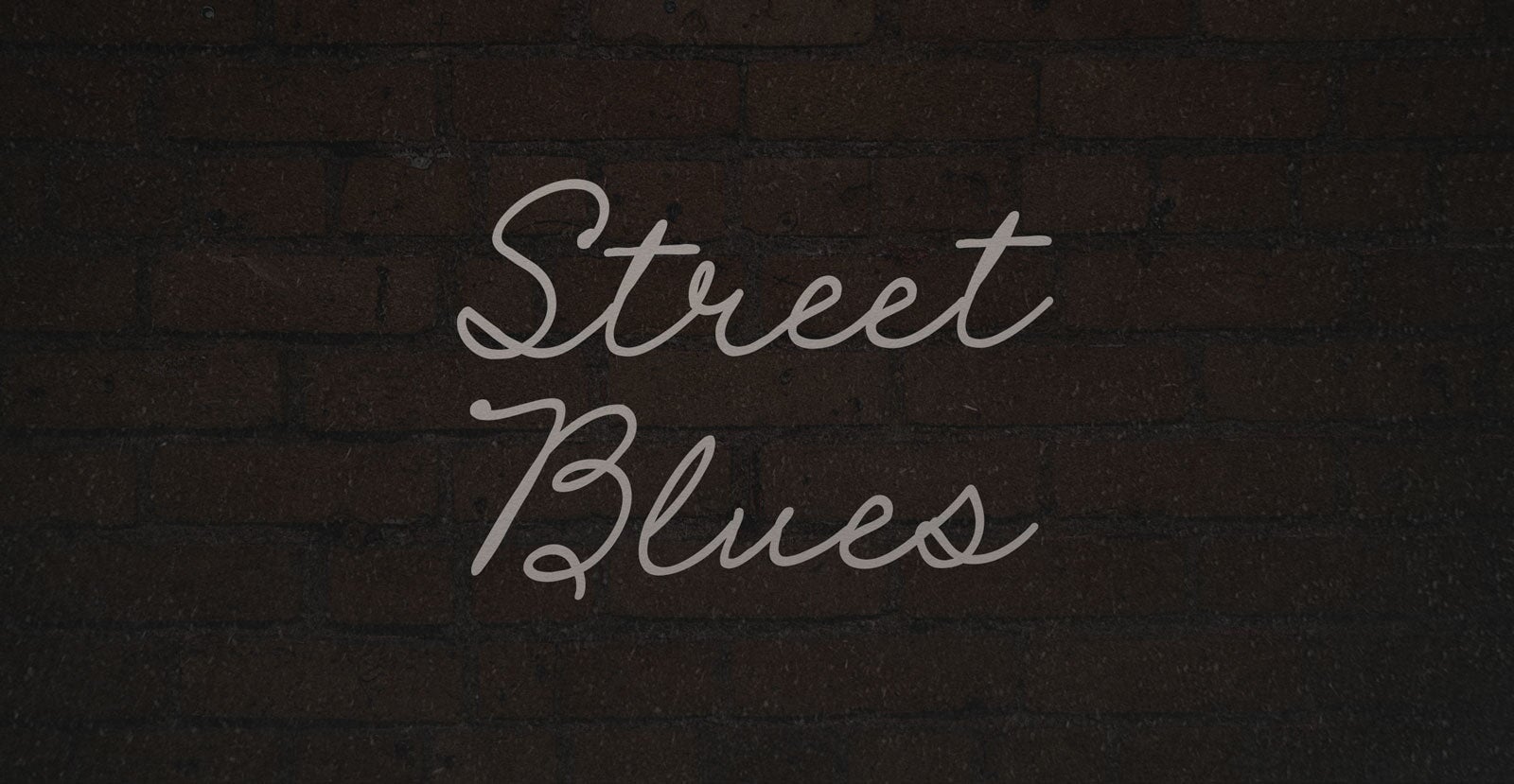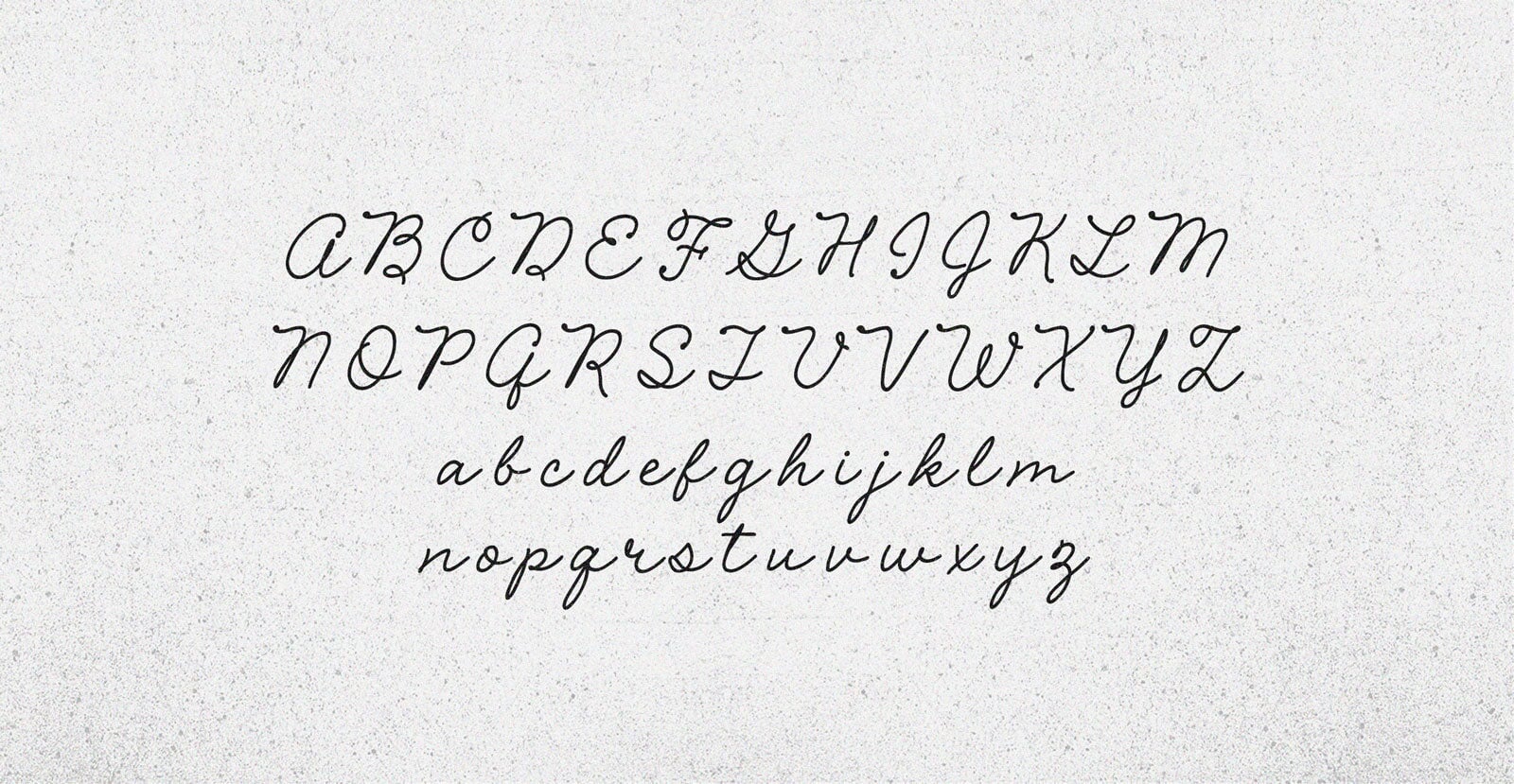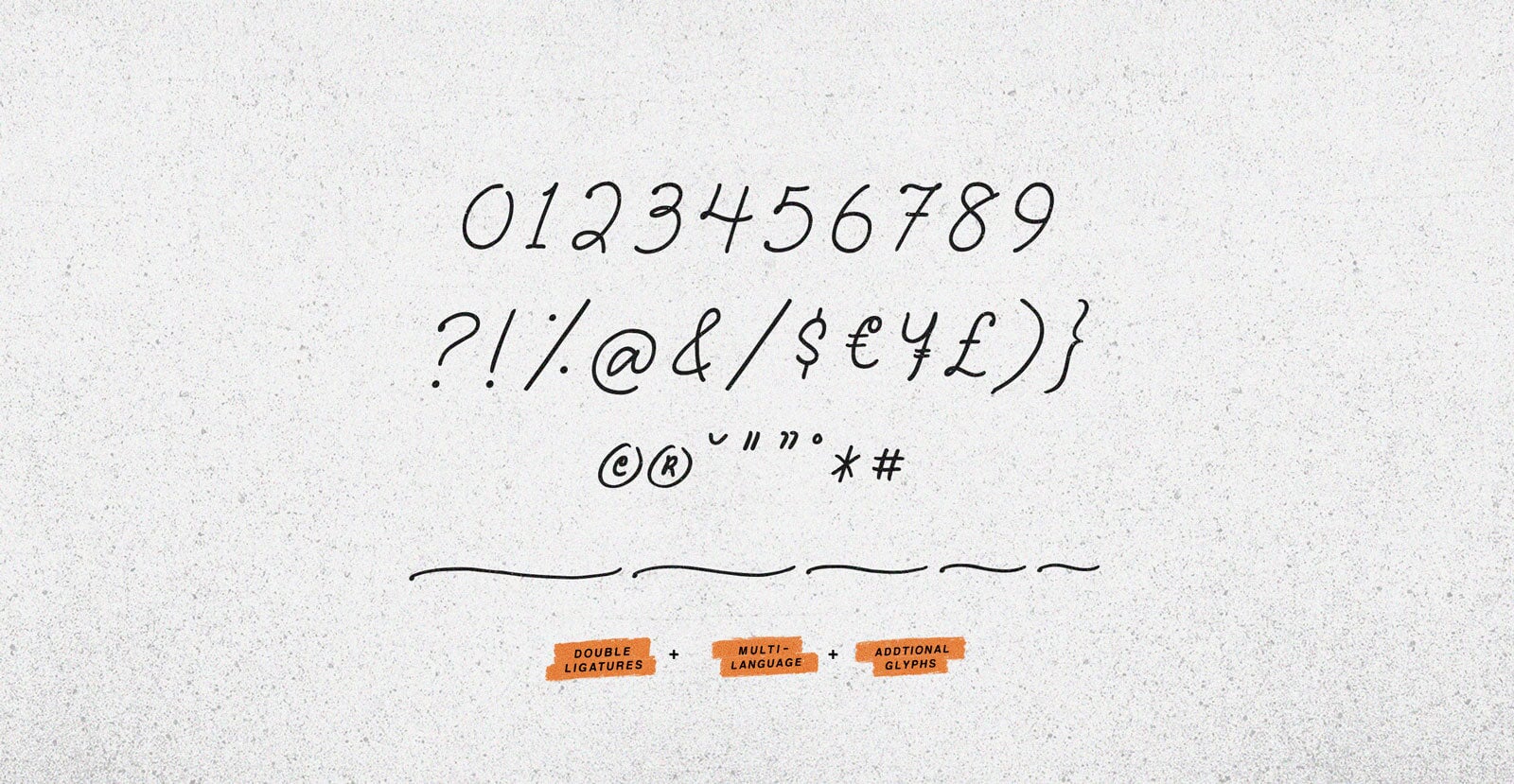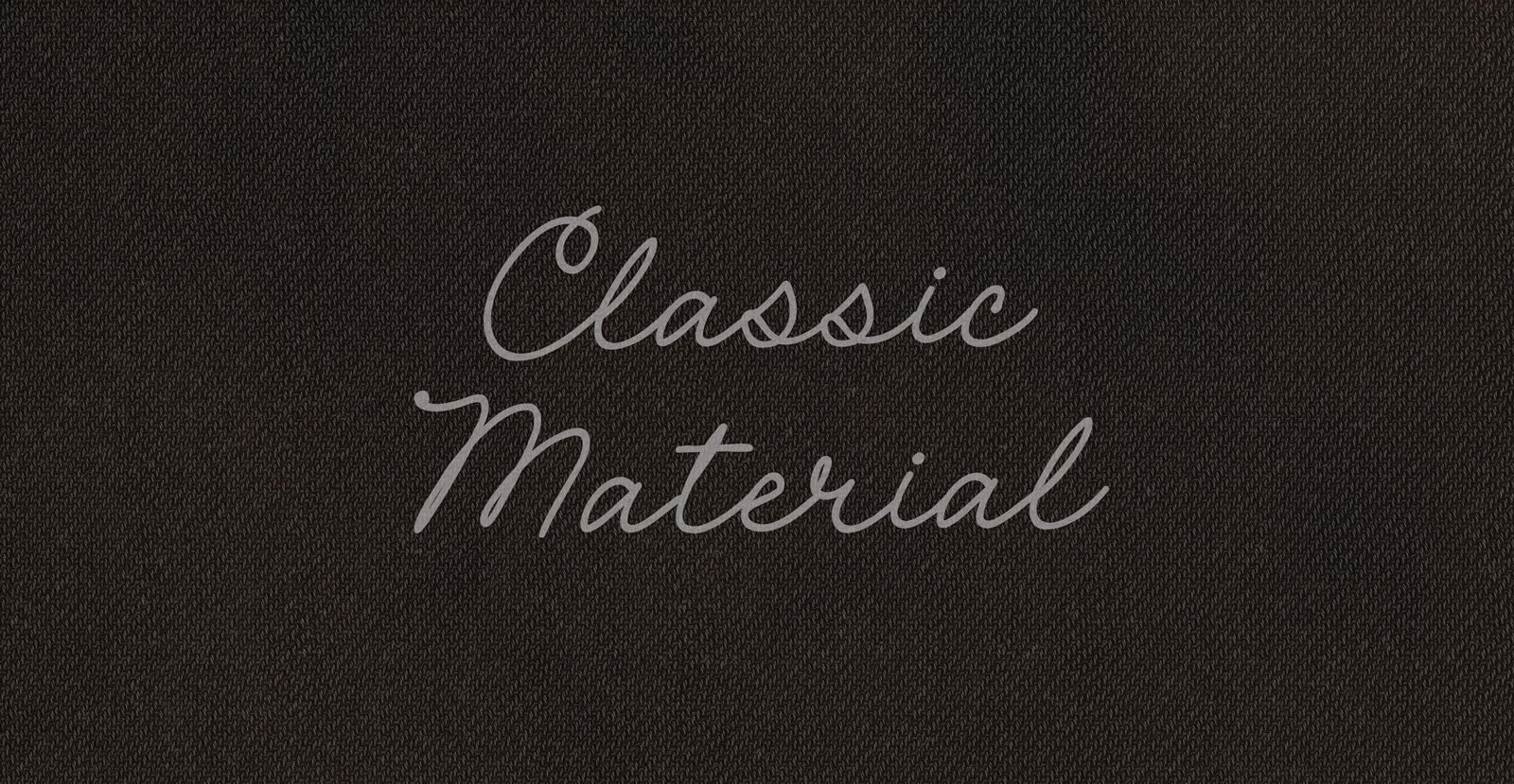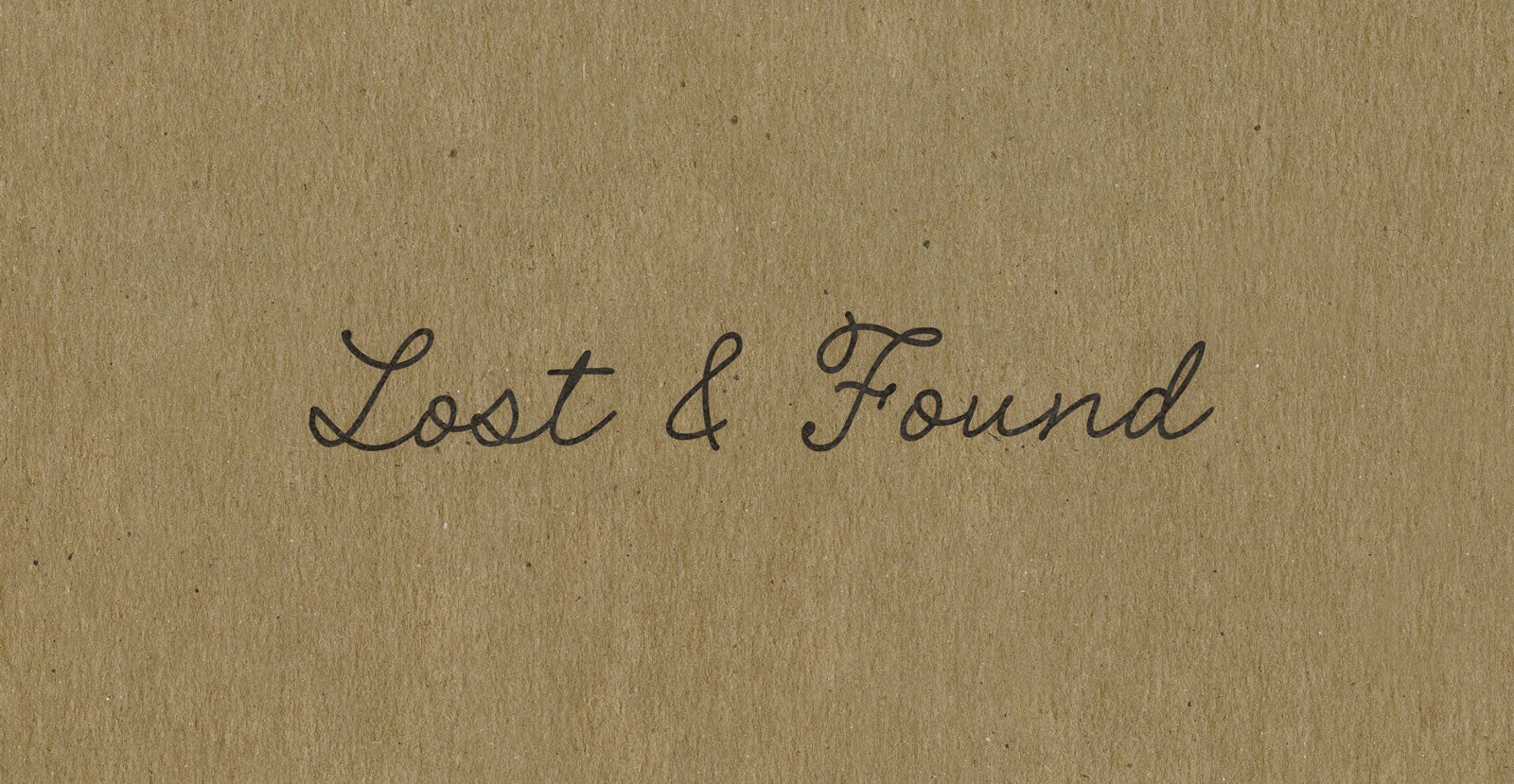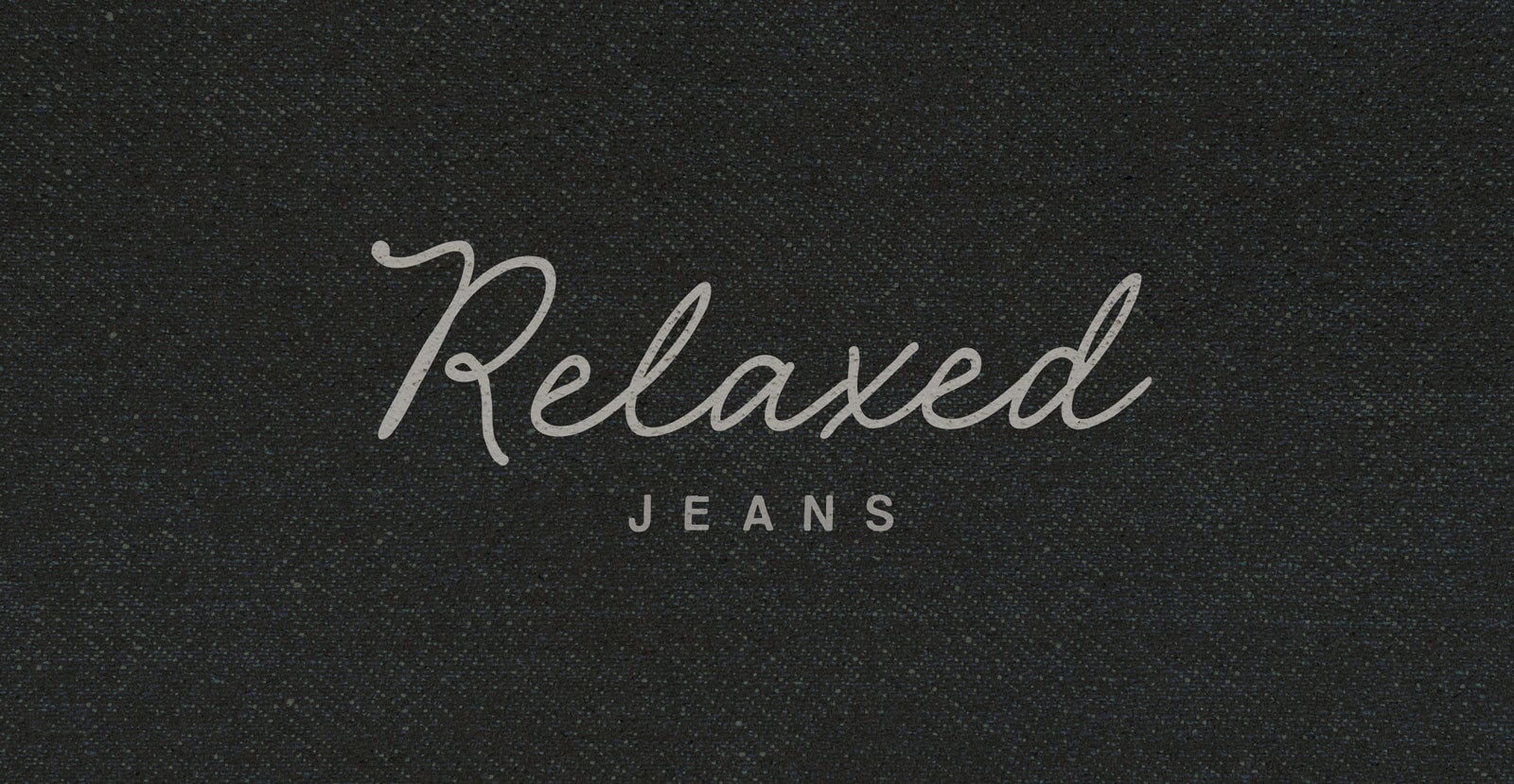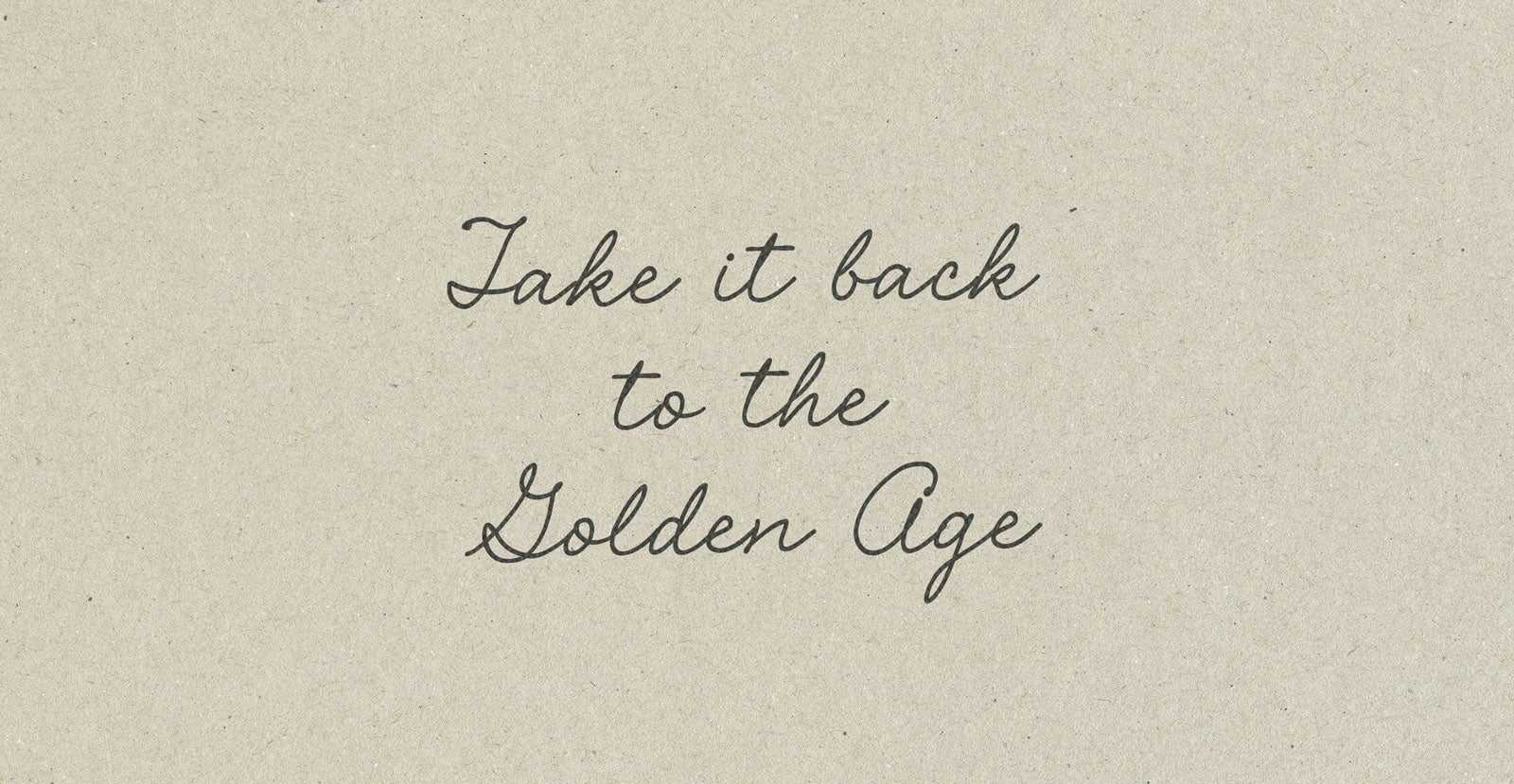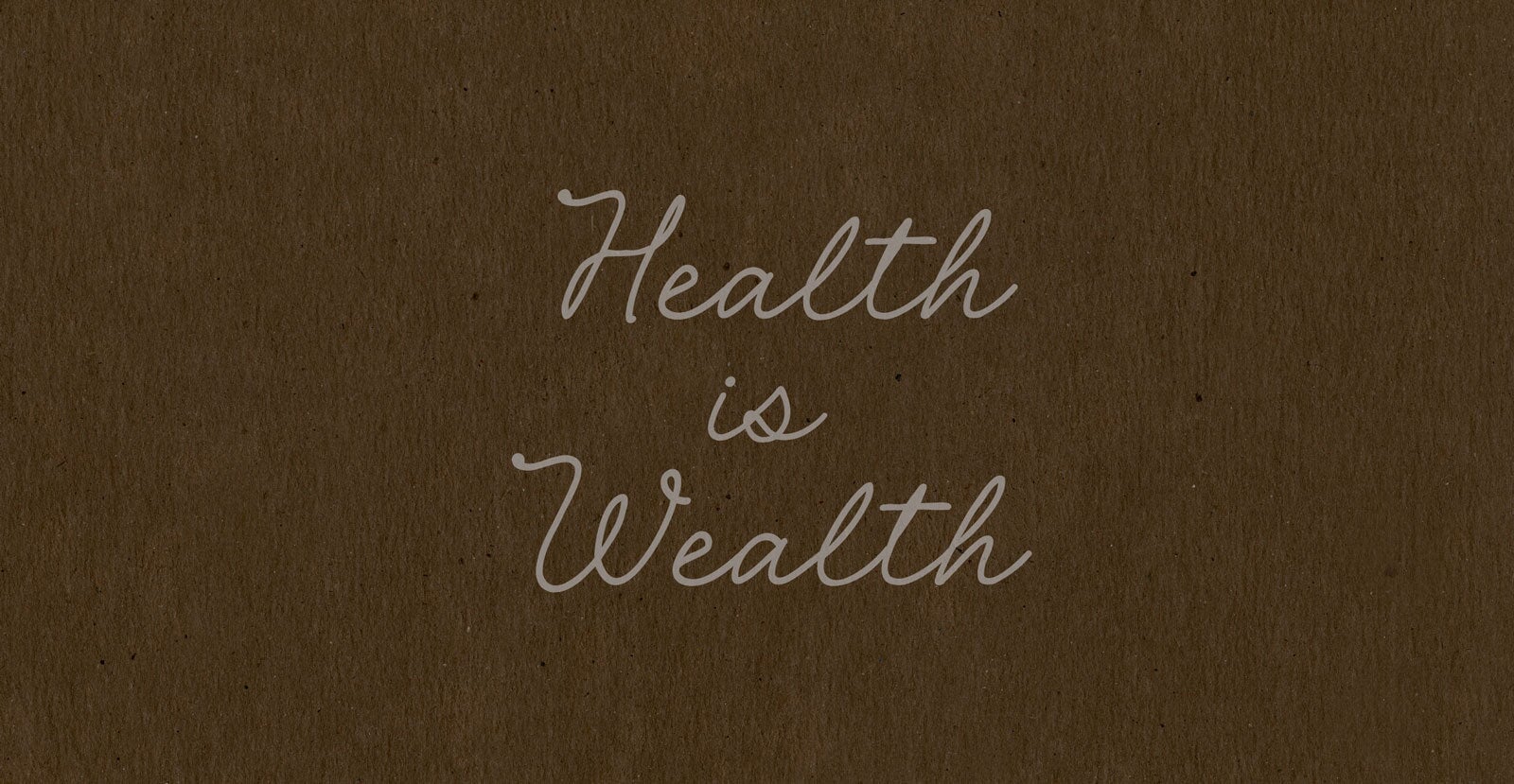
Street Blues
Handwritten Pen Script Font
Street Blues walks with a slow swagger. It carries the weight of stories told in passing, with rhythm in its step and honesty in its tone. Faded edges, but nothing fake.